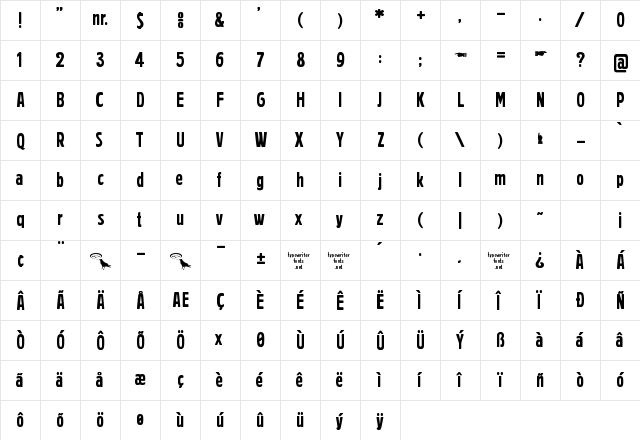
Prager Headlines Normal
Normal · Lukas Krakora Lukas Krakora ·
Foundry Lukas Krakora
DesignerLukas Krakora
Design Context for Prager Headlines Typeface
Prager Headlines takes a measured approach to typography — its balanced proportions and neutral character make it a reliable workhorse for both digital and print work.